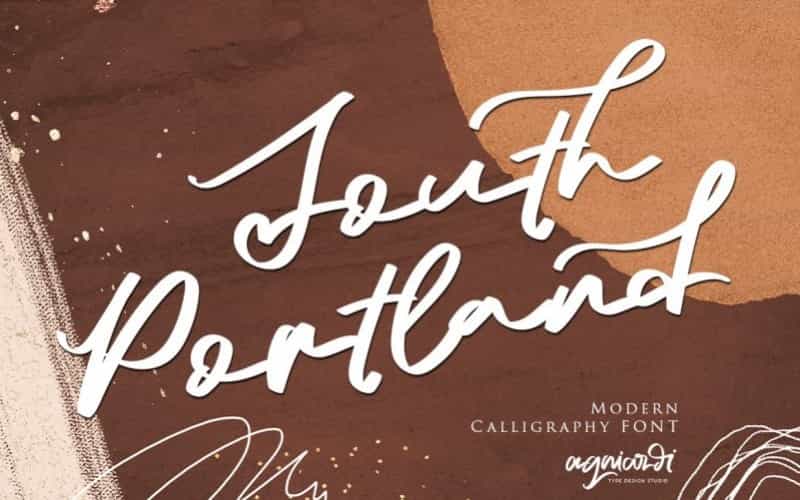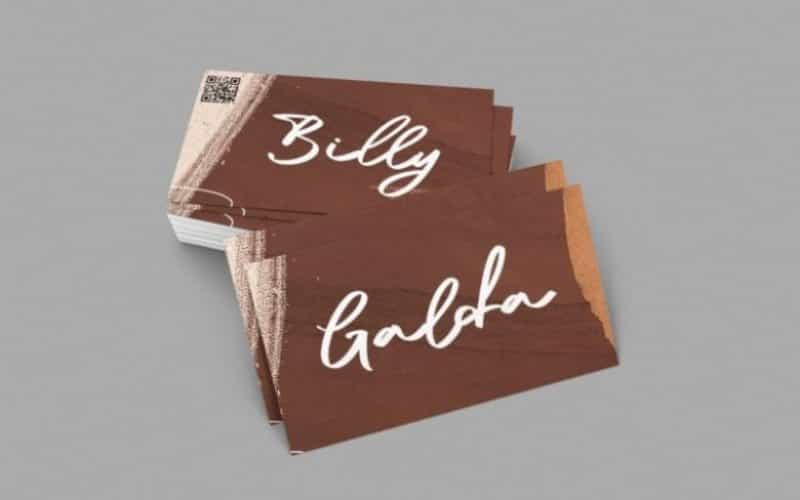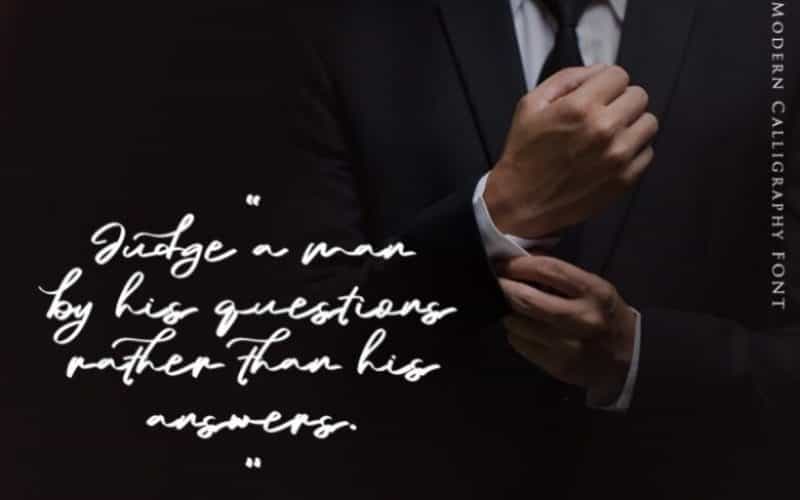
Discover South Portland Script Font, part of the Brush Calligraphy Handwritten collection—a versatile and unique font perfect for adding a personal touch to your projects. Download it for free and enjoy crafting designs with style, from invitations to social media posts. This font is available exclusively for personal use, giving you the freedom to create without limits. Unlock your creativity with South Portland Script Font today!
South Portland is a signature font which has graceful curves and alternate characters. One of the styles we picked was the natural look, which is hand-made and has its own identity. South Portland also has alternative characters that are carefully designed for adding a minimalist decor of the letters.